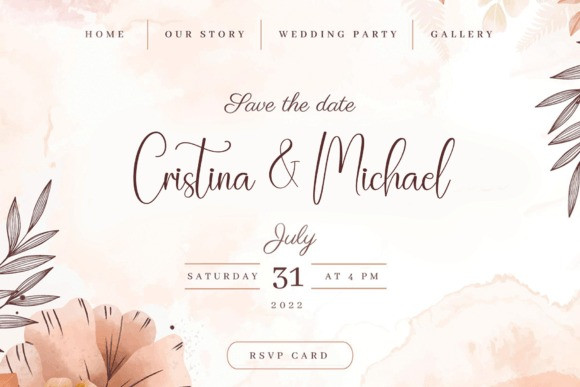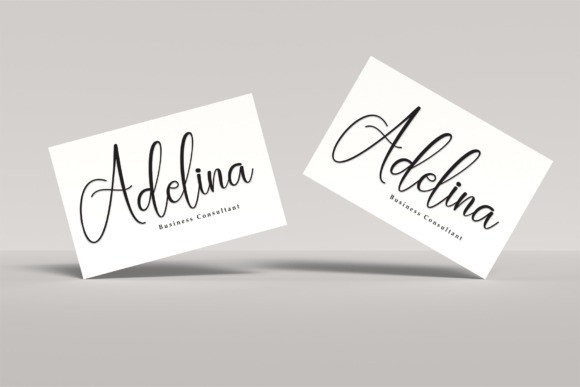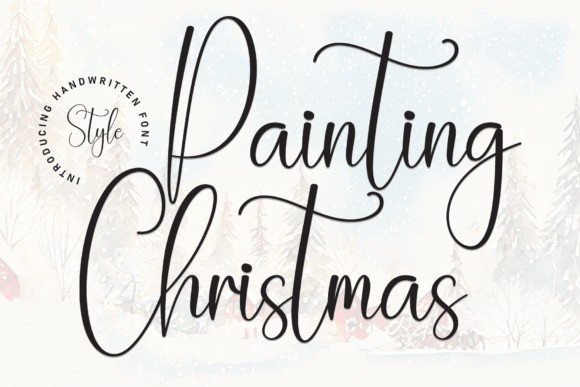
Painting Christmas Font
Painting Christmas Font is a flowing handwritten font, described by an elegant touch, perfect for your favorite projects. Fall in love with its incredibly distinct and timeless style and use it to create spectacular designs!